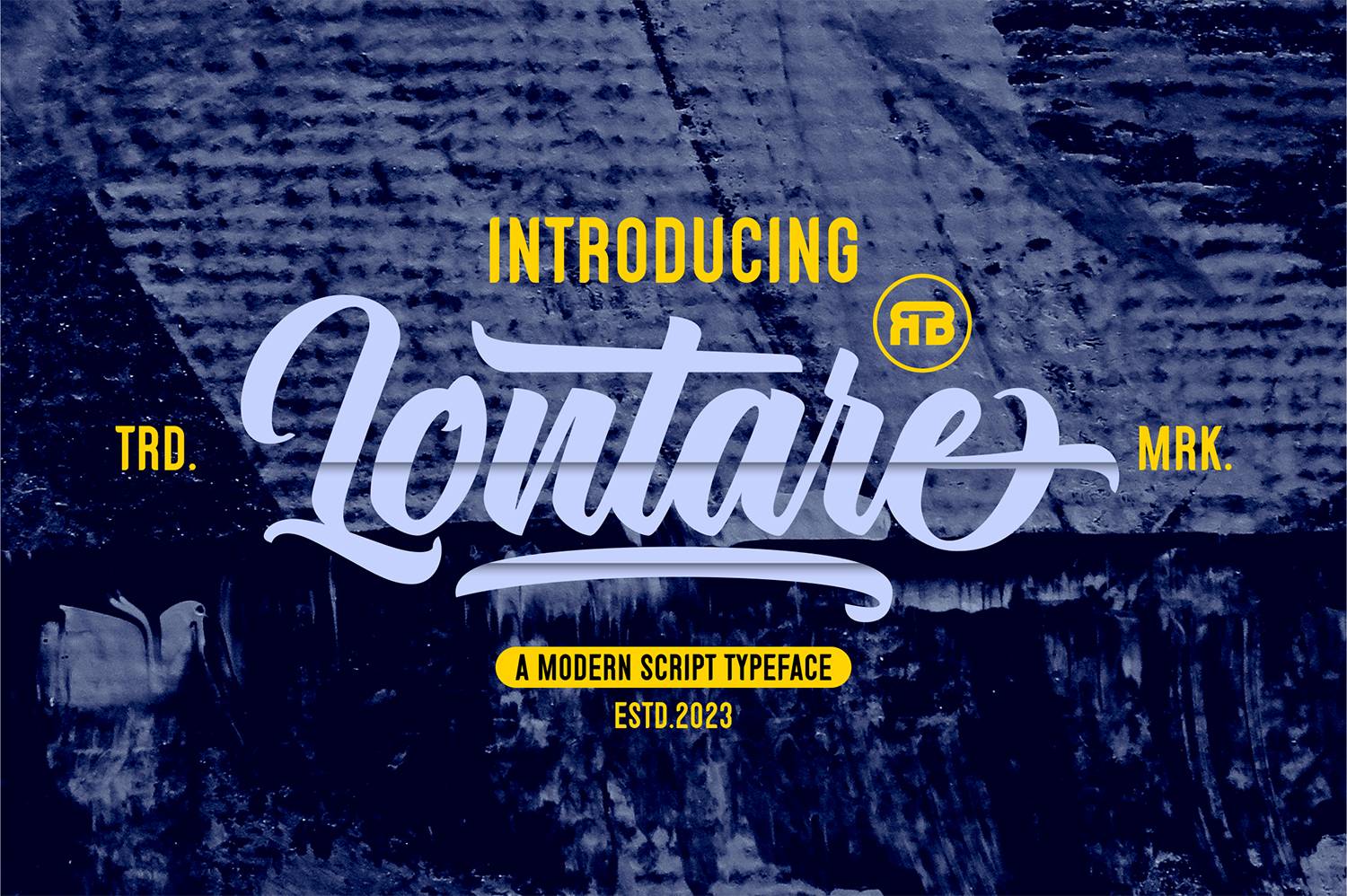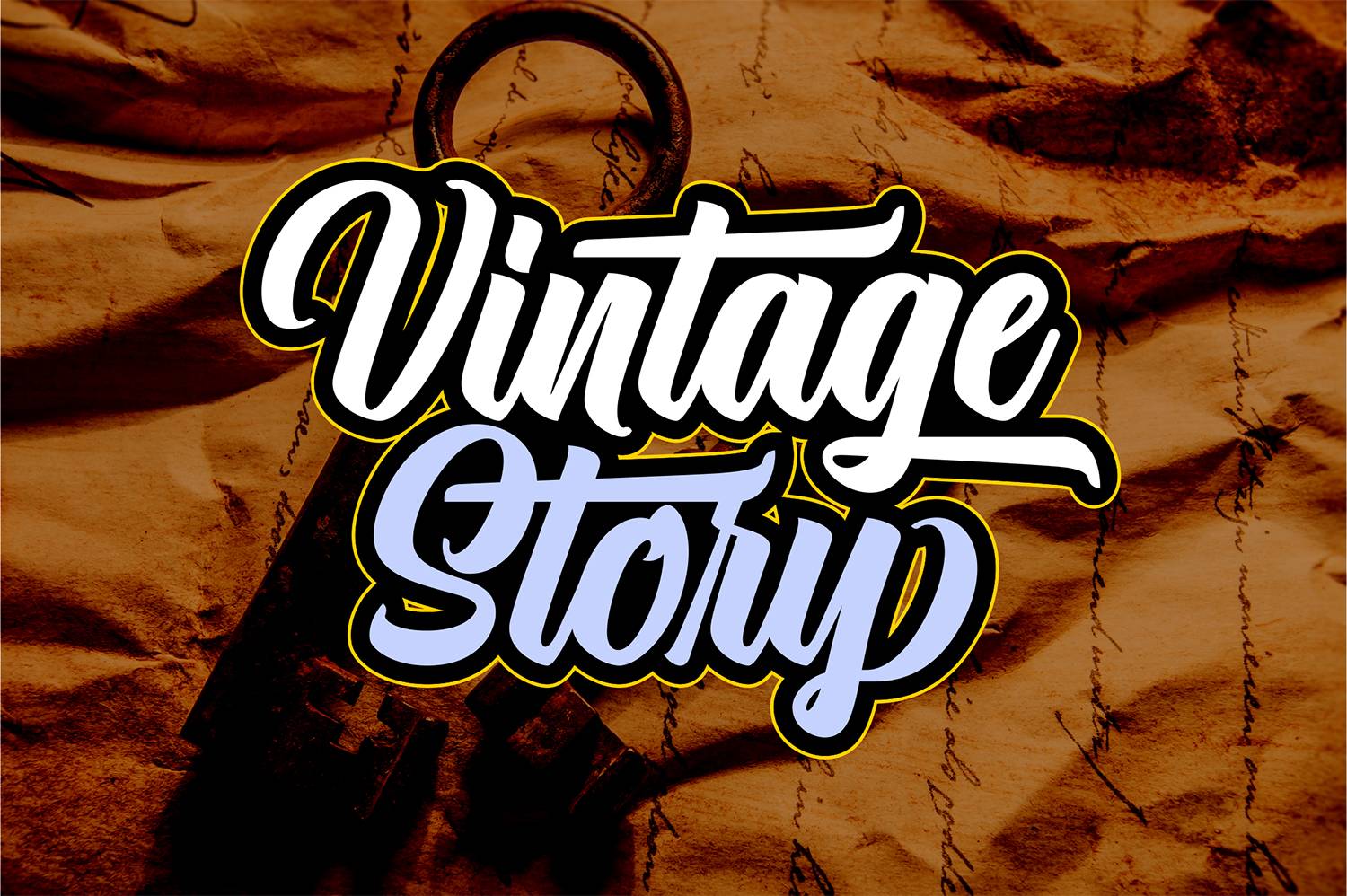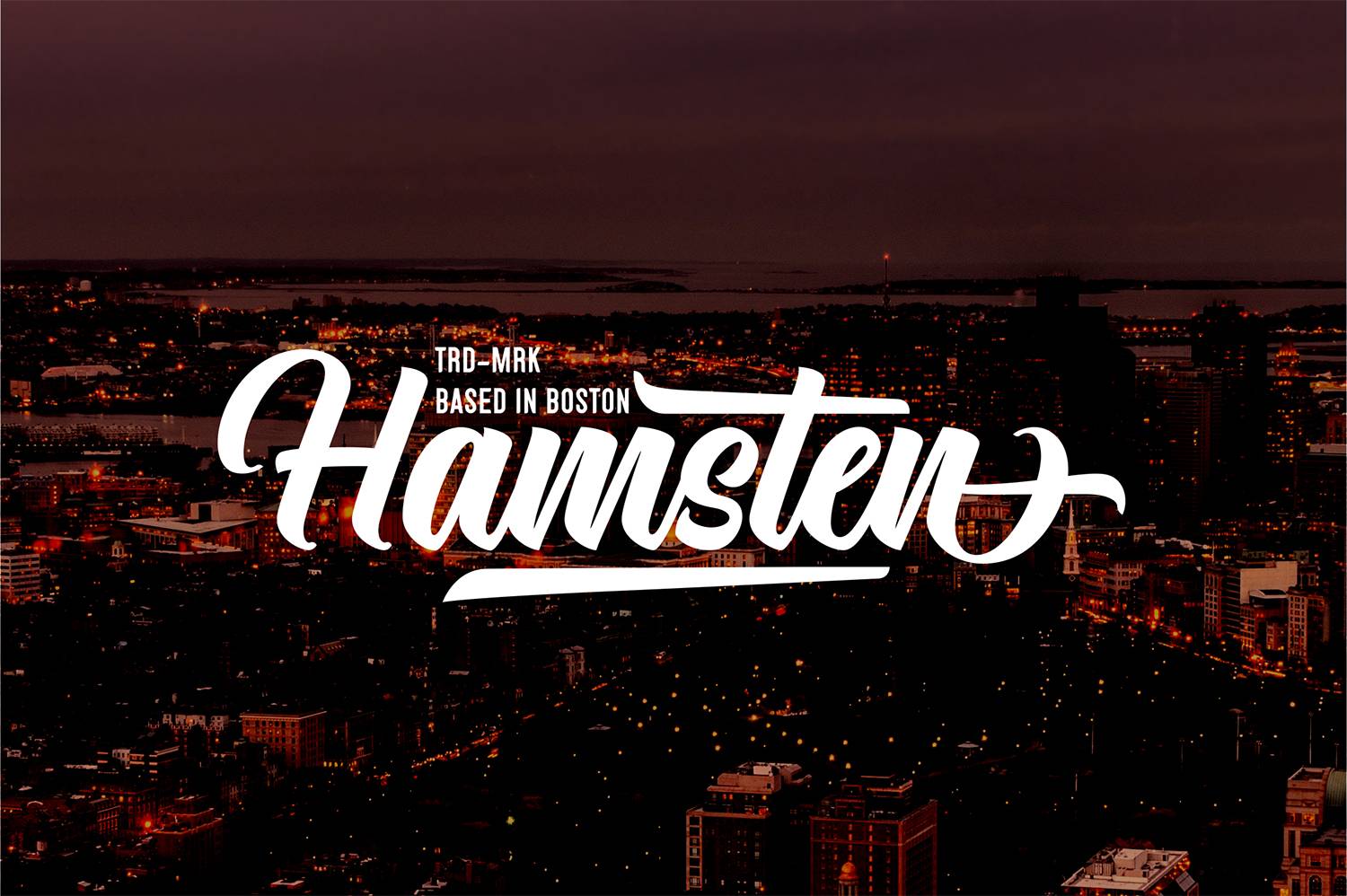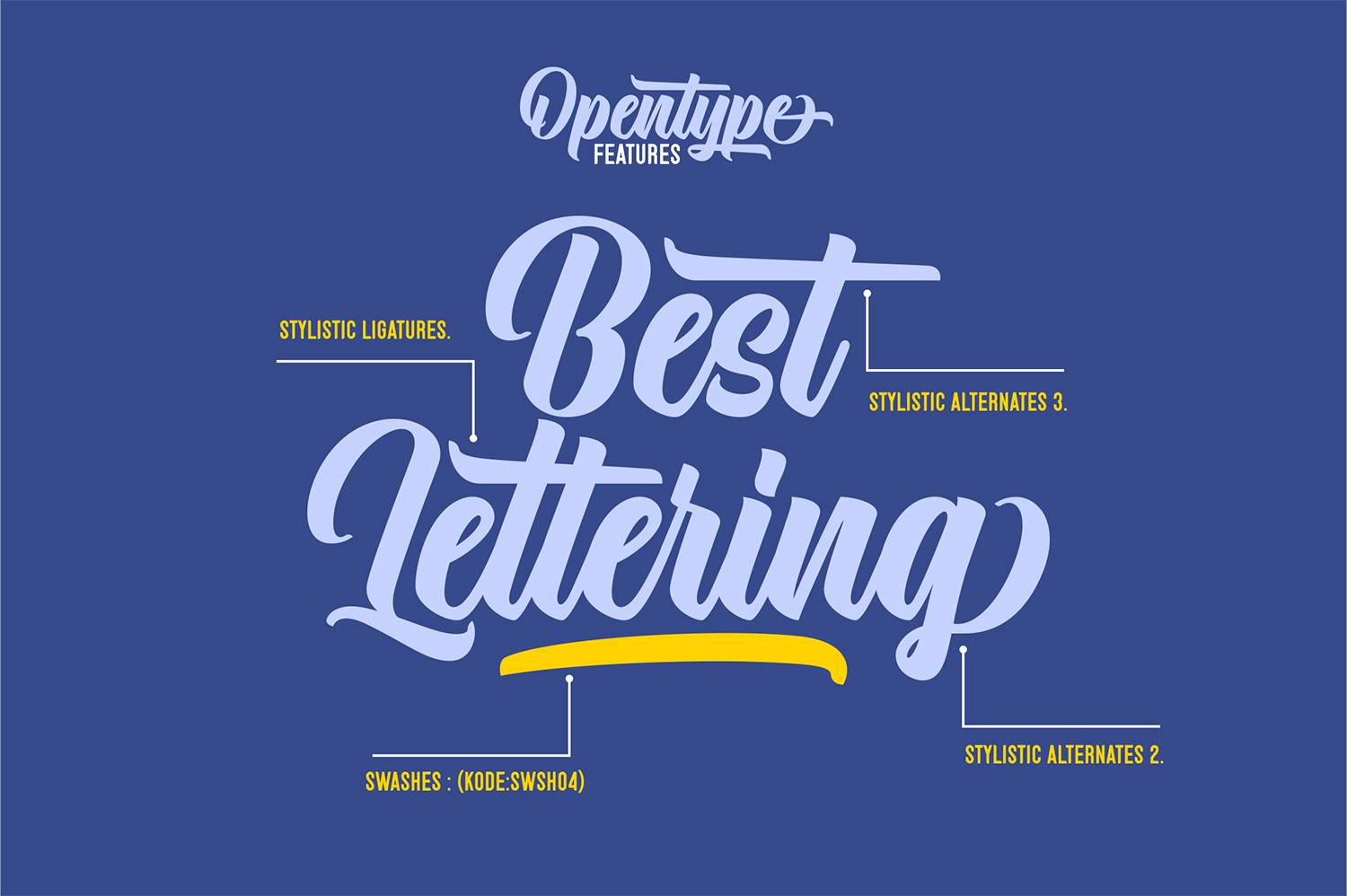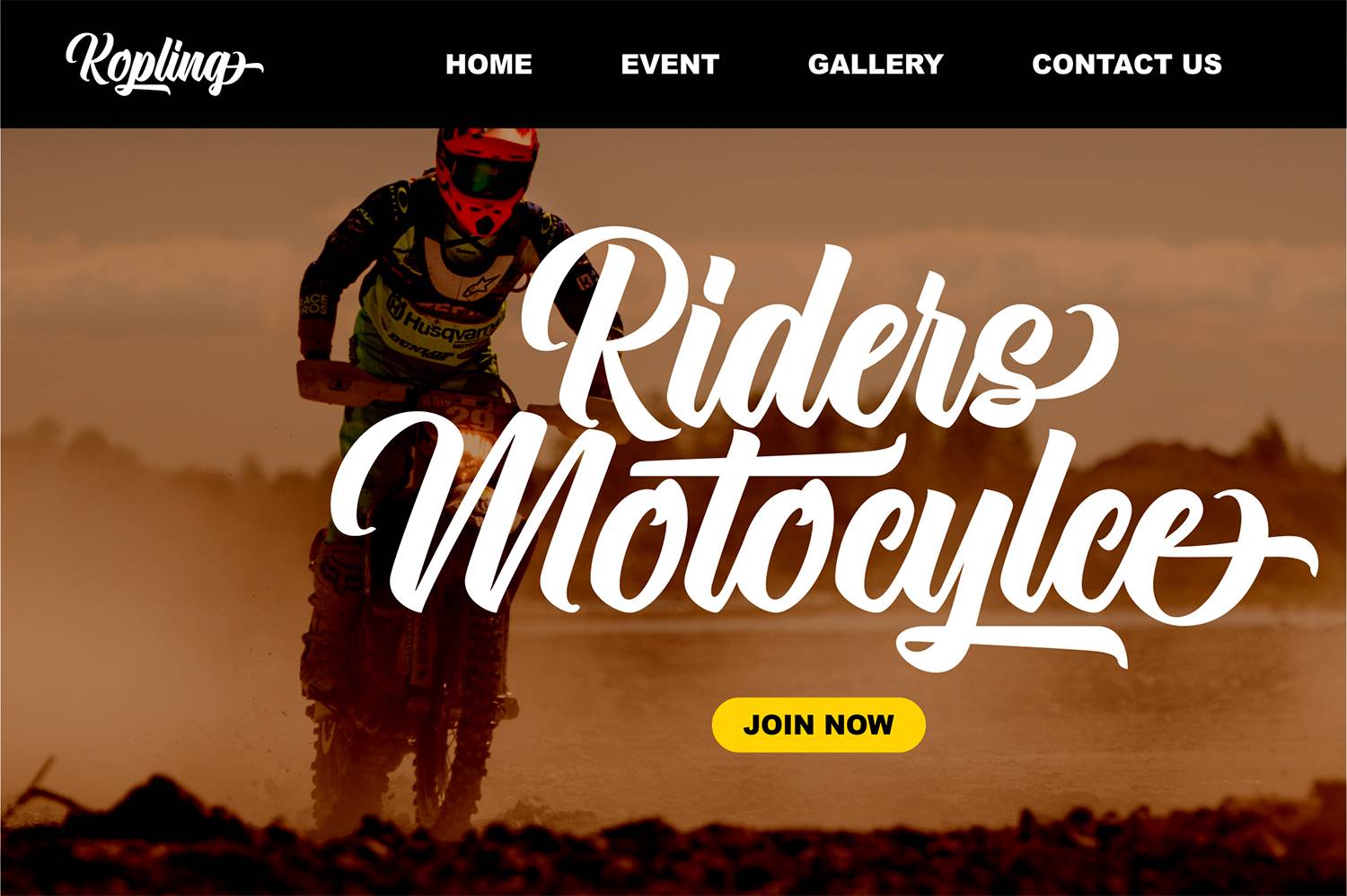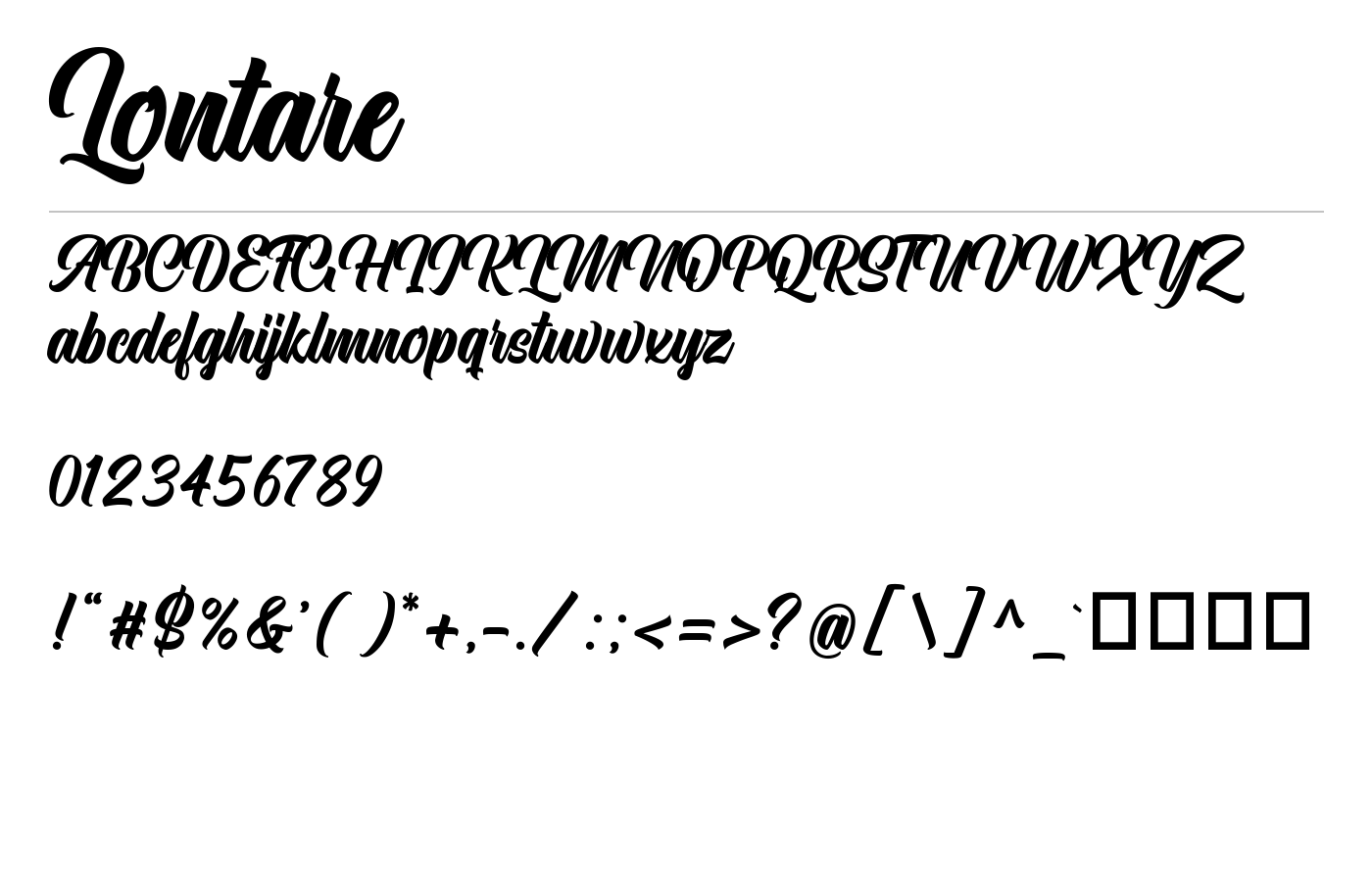
Lontare is a bold, elegant script font that combines smooth, flowing strokes with a slightly informal, handwritten feel. Its medium contrast and italicized style create a dynamic and stylish look, making it perfect for branding, logos, and headlines where a touch of personality and sophistication is desired. This font works especially well for fashion, invitations, and creative projects needing a confident, modern script with classic charm.
Lontare Font
About Lontare Font
| Font family | Lontare Font |
| Designer | MOH. MA'IN |